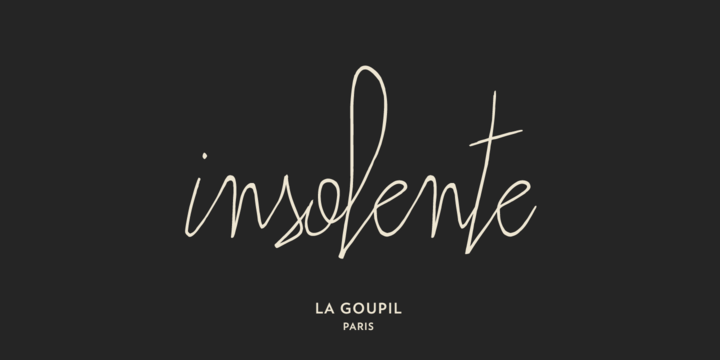
Insolente Font
Insolente
Insolente is a typeface created by Julien Saurin & Fanny Coulez and published by La Goupil. If you want to give a personal touch of your projects, you need this handwritten font which has versatile lettering. Enjoy!
Range Serif is a typeface created by Dave Rowland and published by Schizotype. This family font contains 10 fonts perfectly for corporate identities, contemporary art catalogs, even t-shirt slogans. All fonts contains standard f-ligatures and you will find other tips if you buy it!
Rehn Font
Rehn
Rehn is a typeface published by moreype. You will acquire a modern font that it will provide the complet toolkit for all your typographic needs.